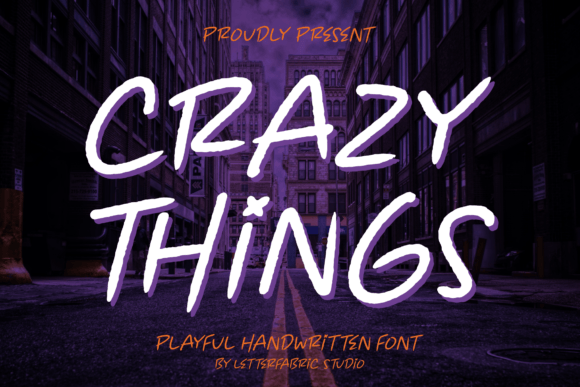
In a world of digital monotony, where fonts often blend into a sea of uniformity, allow us to introduce you to "Crazy Things", a script font that bursts onto the scene with its captivating and playful persona. This handcrafted masterpiece, designed by the visionary minds at Letterfabric, breathes life into your creative endeavors, transforming them into captivating visual experiences.
Meet "Crazy Things," a lighthearted and vibrant font that embodies the spirit of spontaneity and adventure. Its playful strokes dance across the page, evoking a sense of childlike wonder and unbridled creativity. Whether you're an artist, a designer, or simply a lover of unique typography, "Crazy Things" will ignite your imagination and inspire you to create captivating works of art.
"Crazy Things" doesn't just elevate your designs; it transports them to a realm of pure joy and whimsy. Its meticulously crafted characters exude warmth and charm, adding a personal touch to every project. With "Crazy Things," your words dance and twirl, captivating your audience and leaving an unforgettable impression.
For those seeking a font that reflects their individuality and creative spirit, "Crazy Things" stands as a beacon of artistic expression. Whether you're crafting eye-catching logos, enchanting invitations, or heartfelt social media posts, this font becomes your trusty companion, transforming ordinary words into extraordinary visual experiences.
But "Crazy Things" isn't just a pretty face; it possesses versatility that defies limitations. Its playful nature lends itself to a multitude of applications, from whimsical wedding stationery to vibrant posters that demand attention. Unleash your creativity and watch as "Crazy Things" adds a touch of magic to your designs, leaving your audience spellbound and yearning for more.
Don't settle for ordinary fonts that fail to ignite your imagination. Embrace the boundless creativity of "Crazy Things" and embark on a visual journey like no other. Let your designs stand out, radiate joy, and leave an indelible mark on the hearts of your audience. "Crazy Things" is not just a font; it's an experience, an invitation to let your creative spirit soar.
So why should you choose "Crazy Things"? Because it's more than just a font; it's a gateway to a world of creative possibilities. It's a chance to express your unique style, to captivate your audience, and to create designs that resonate with emotion and imagination. "Crazy Things" is the perfect choice for those who dare to be different, who embrace the power of creativity and strive to make their mark on the world.